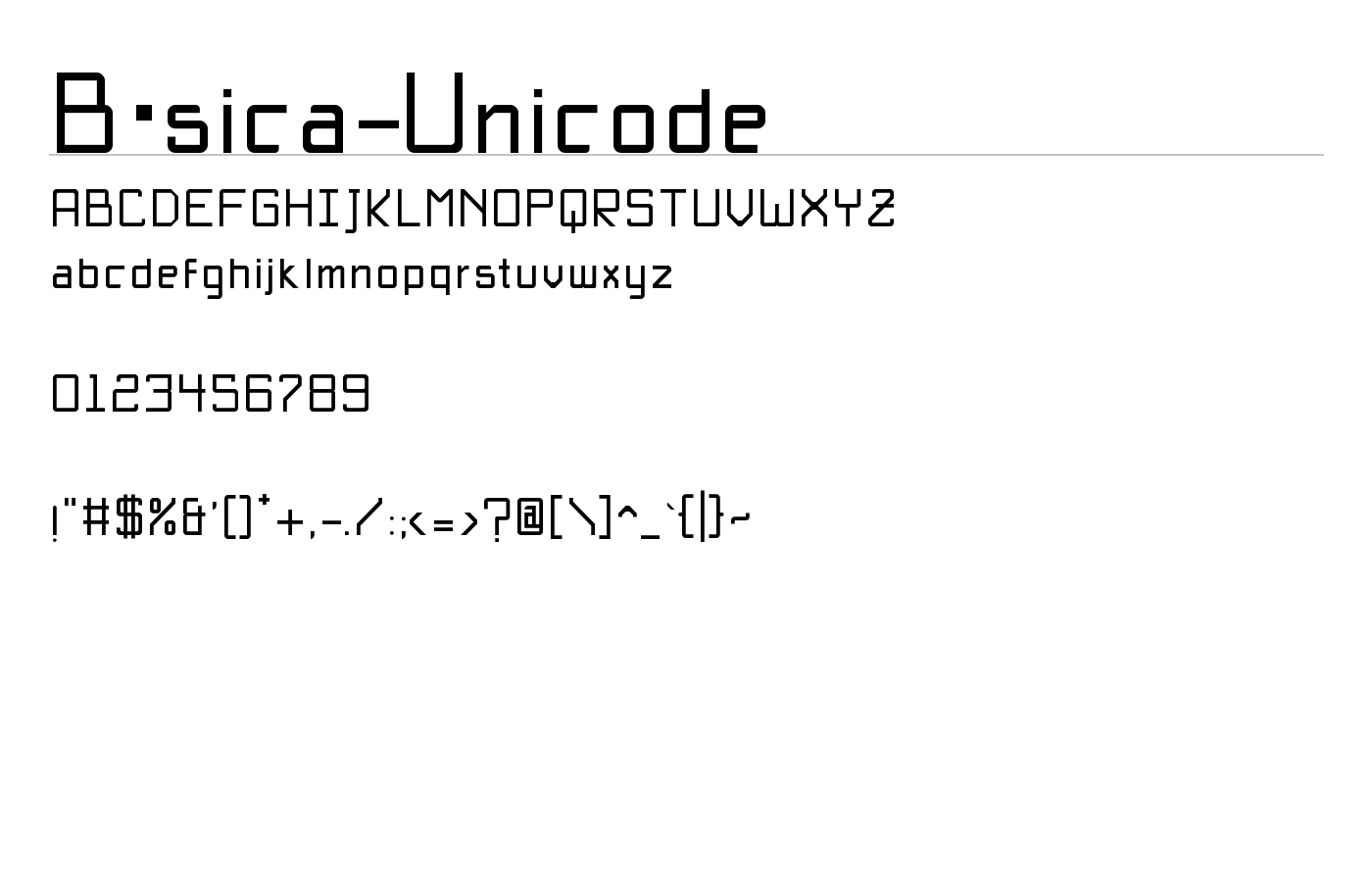
Básica-Unicode is a geometric sans serif font with a clean, modern feel characterized by monoline strokes and a consistent, slightly condensed width. Its tall x-height and minimalist letterforms, including distinctive single-story a and g, give it a technical and precise vibe, making it ideal for digital interfaces, coding environments, and contemporary branding. This font works well for headlines and displays where clarity and a futuristic tone are desired.
Básica-Unicode Font
About Básica-Unicode Font
| Font family | Básica-Unicode Font |
| Designer | Juan Casco |